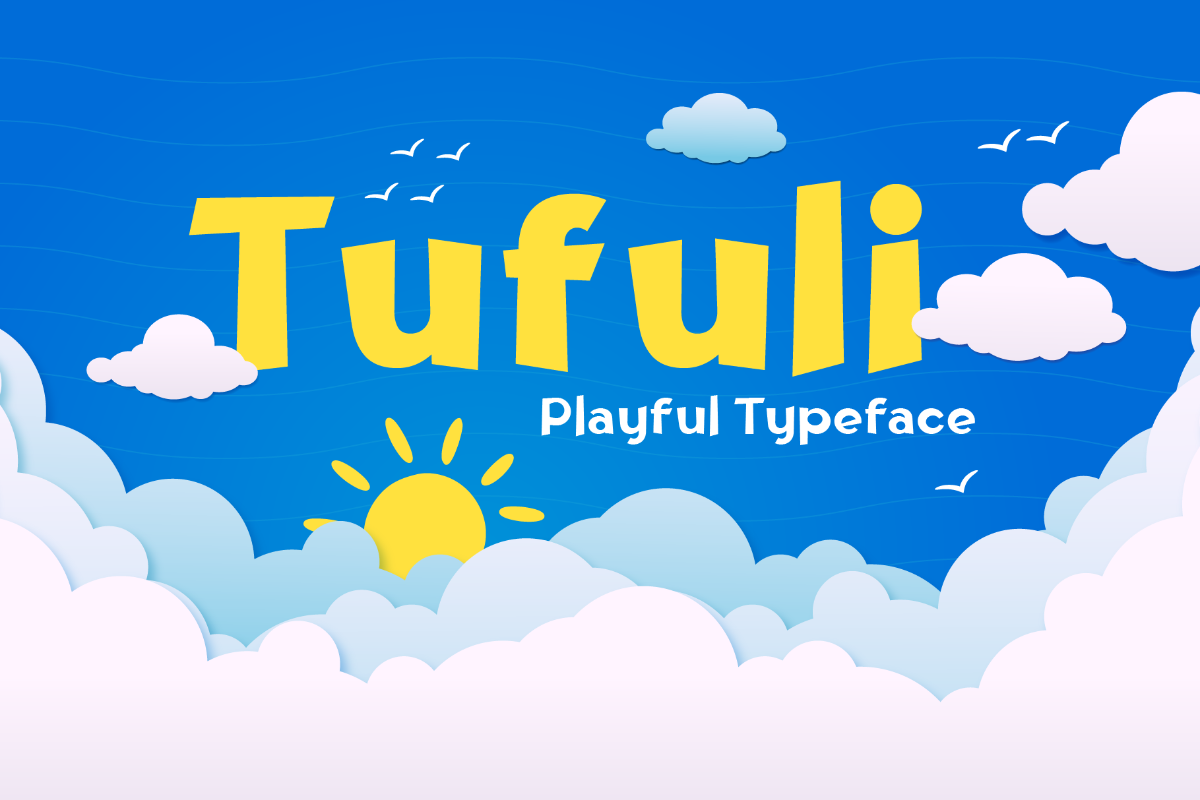
Tufuli Oblique
Tufuli Font - A Fun and Playful Display Typeface for Expressive Design & Apps Not every design needs to be serious. Sometimes, the most powerful thing a typeface can do is make someone smile. Tufuli Playful Display Font is built precisely for that purpose. As a display typeface, it brings energy, personality, and a sense of carefree creativity to any design it touches—without sacrificing clarity or balance. Published by Namelatype, Tufuli stands out as a go-to choice for designers who want thei